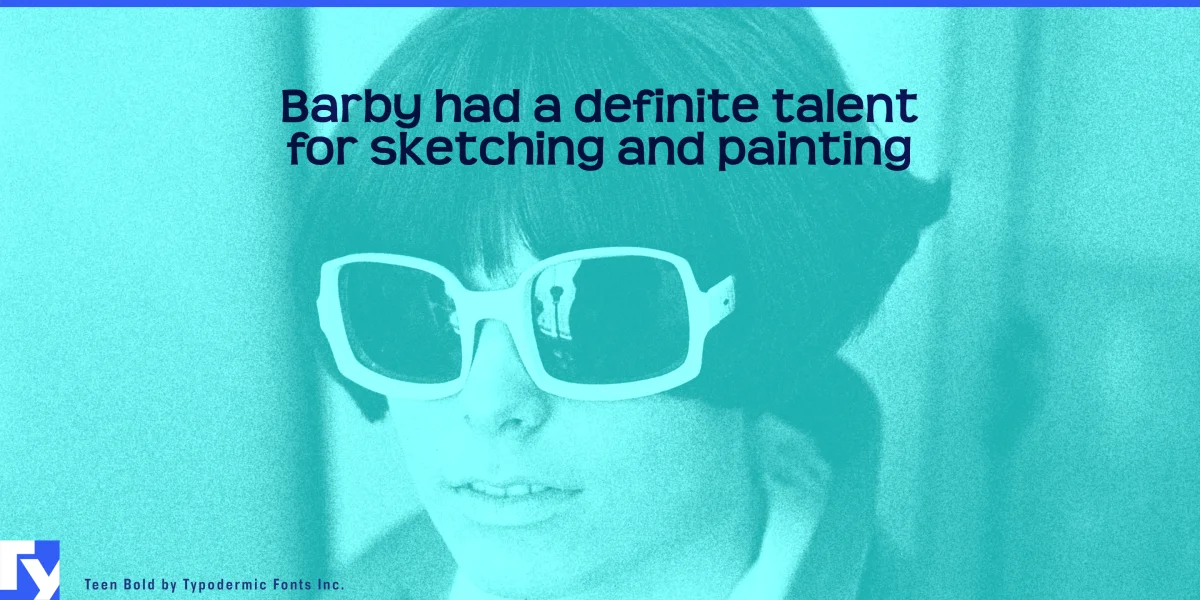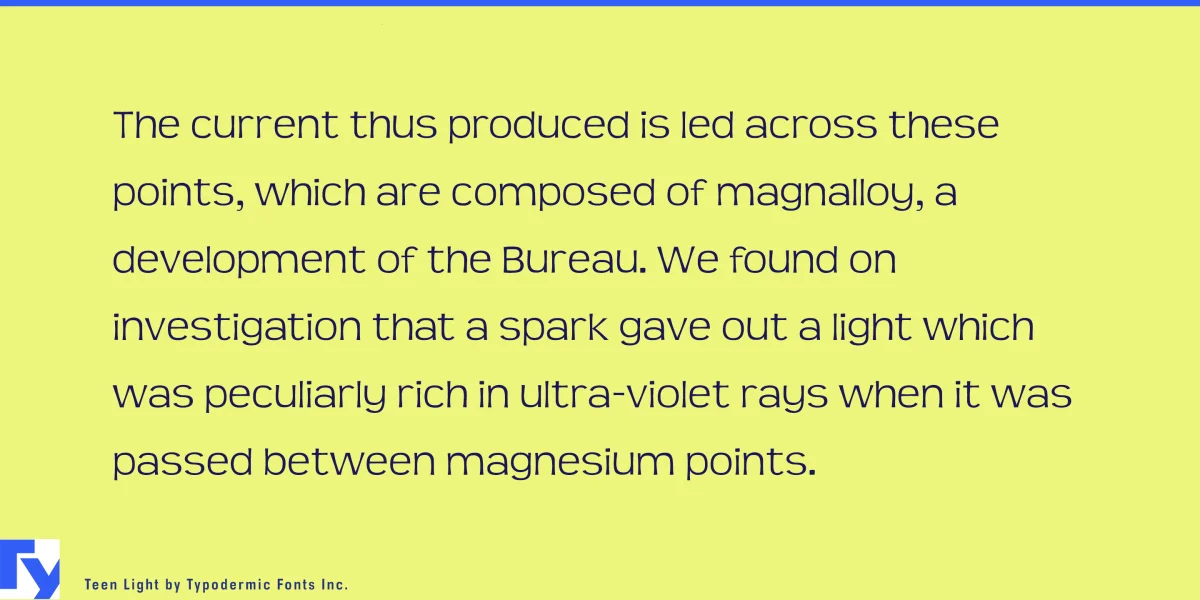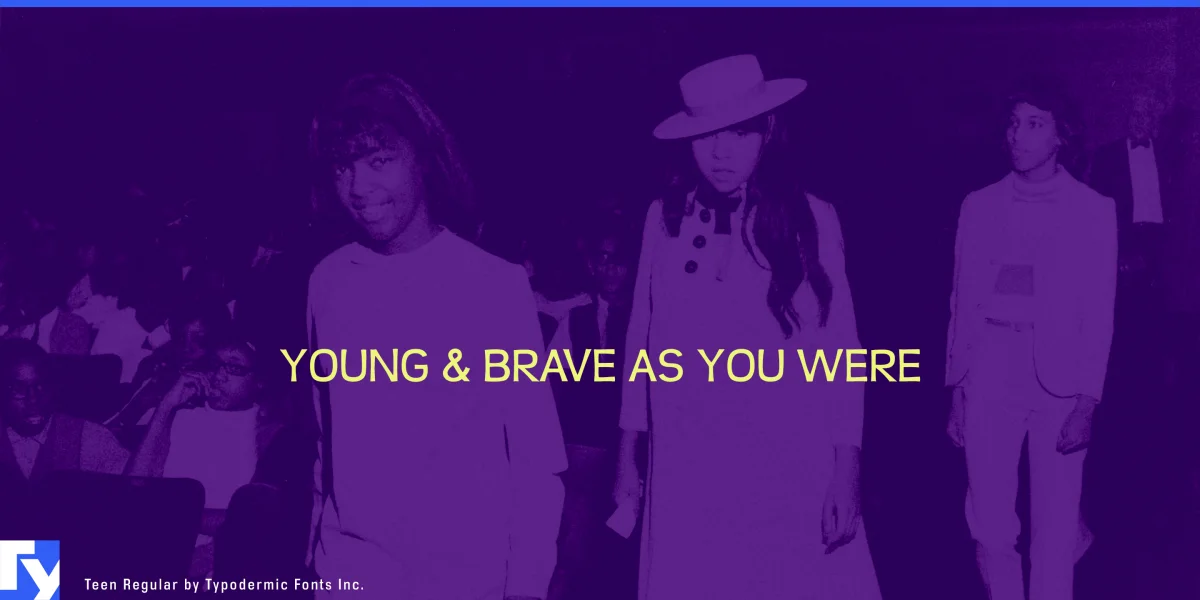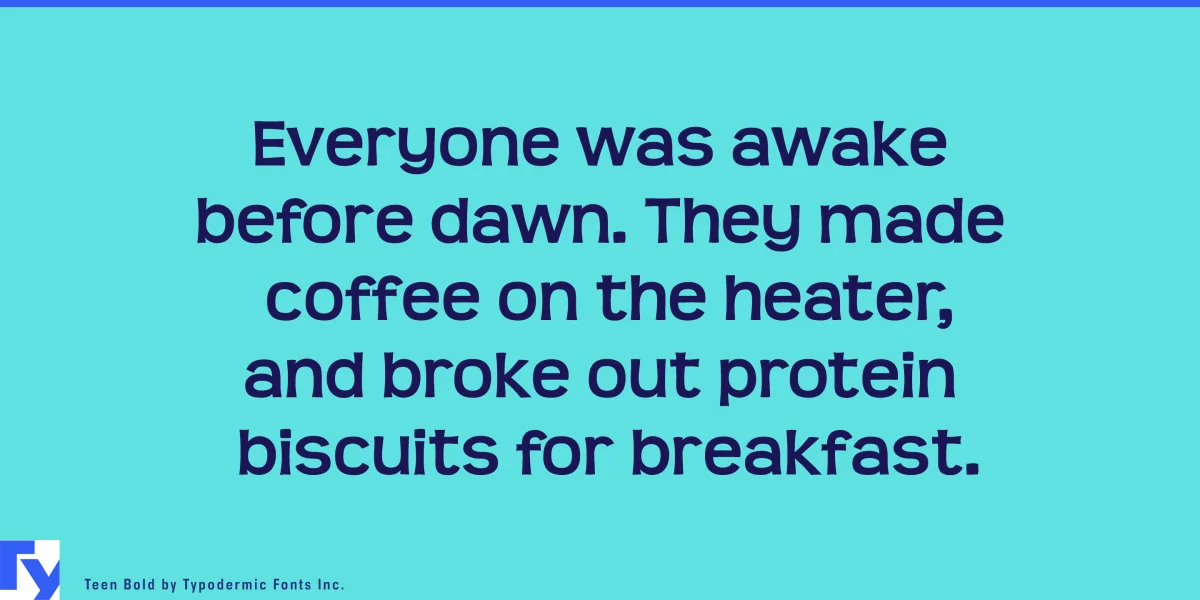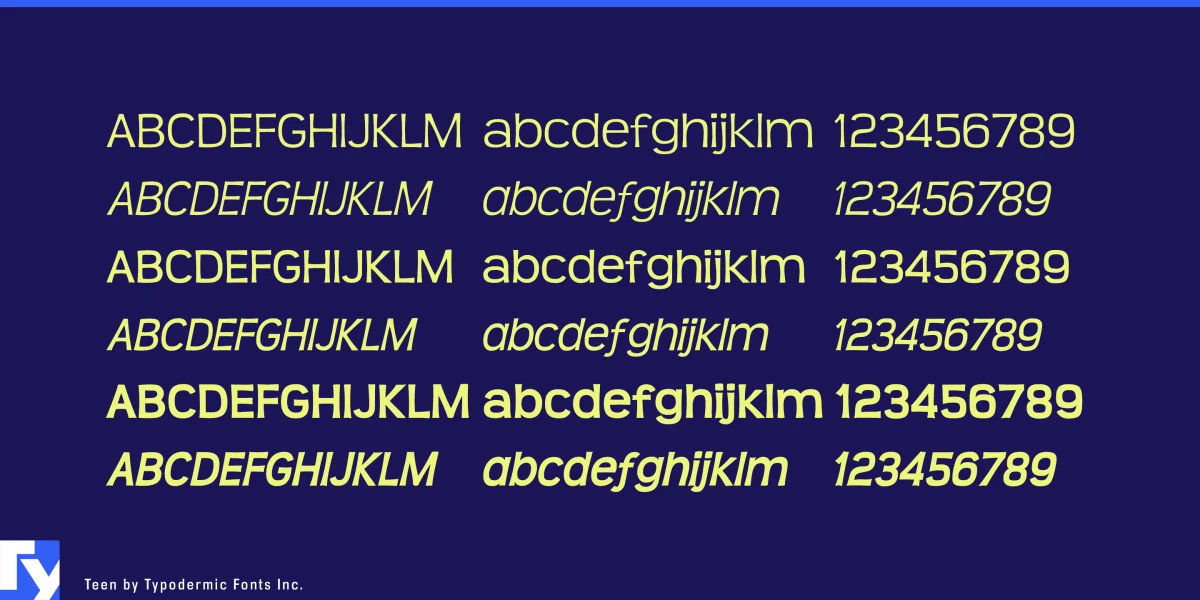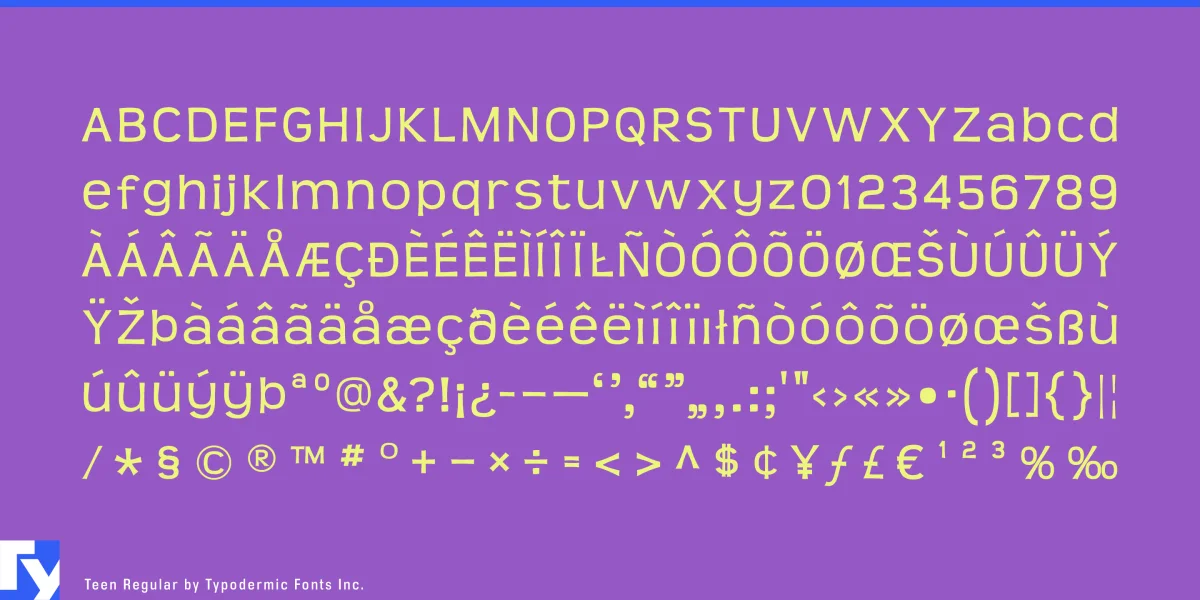
Teen is a wild display typeface with a superelliptical, casual flare and a very tall x-height. Its sophisticated 1960s style will add dashing personality and sophisticated energy to your message. Teen is available in light, regular, bold, and italics. Some Latin-based European writing systems are supported, including the following languages. Afaan Oromo, Afar, Afrikaans, Albanian, Alsatian, Aymara, Basque, Bemba, Bikol, Breton, Cape Verdean, Creole, Catalan, Cebuano, Chamorro, Chavacano, Danish, Dawan, Dholuo, Dutch, English, Estonian, Faroese, Fijian, Filipino, Finnish, French, Frisian, Friulian, Galician, Genoese, German, Guadeloupean Creole, Haitian Creole, Hiligaynon, Icelandic, Ilocano, Indonesian, Irish, Italian, Jamaican, Kaqchikel, Kikongo, Kinyarwanda, Kirundi, Lombard, Low Saxon, Luxembourgish, Makhuwa, Malay, Ndebele, Neapolitan, Norwegian, Novial, Occitan, Papiamento, Piedmontese, Portuguese, Quechua, Rarotongan, Romansh, Sango, Saramaccan, Sardinian, Scottish Gaelic, Shona, Sicilian, Silesian, Slovak, Slovenian, Somali, Sotho, Spanish, Swahili, Swazi, Swedish, Tagalog, Tetum, Tshiluba, Tsonga, Tswana, Tumbuka, Uzbek (Latin), Venetian, Võro, Walloon, Waray-Waray, Wayuu, Xhosa, Yapese, Zapotec Zulu and Zuni.